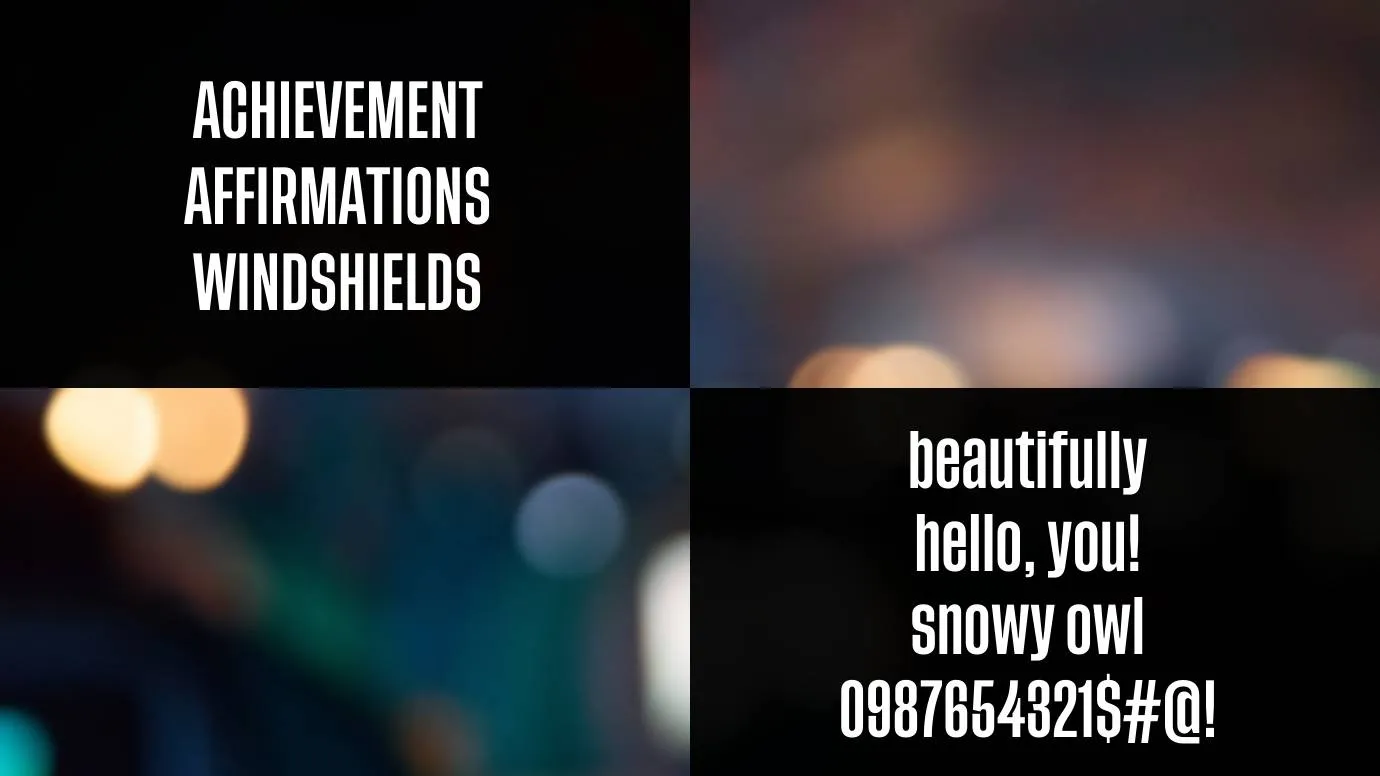
Tusker Grotesk Font was designed by Hannes von Döhren in 2009. The font is named after the Tusker Elephant, which is a subspecies of African elephant.
This outstanding typeface has a unique design that makes it stand out from other fonts. The font is available in three different styles: Regular, Bold, and Italic.
The Tusker Grotesk texture is perfect for any design project that requires a unique and stylish text. You can utilize it for both personal and commercial projects. You can easily compare it with alegreya sans font. This typeface is a great choice for logos, branding, advertising, and much more.
Creator of Tusker Grotesk Font
It was designed by Hannes von Döhren in 2009. The font is named after the Tusker Elephant, which is a subspecies of African elephants.
This style incorporates several elements, such as certain symbols, digits, punctuation, symbols, money and lowercase letters, glyphs, and language support.
View of Tusker Grotesk Font
What styles does Tusker Grotesk Typeface come in?
Tusker Grotesk typeface is available in three different styles: Regular, Bold, and Italic.